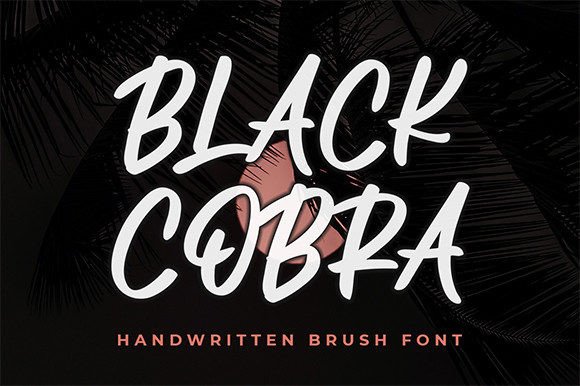
The Ultimate Guide to Black Cobra Font: Unleash Your Creative Potential
I’ll never forget the time I was working on a logo design project for a trendy fashion brand. I had a clear vision of what I wanted to create, but something was missing – the perfect font. I scoured the internet, tried out countless fonts, but none seemed to capture the essence of the brand. That was until I stumbled upon the Black Cobra Font. ✨
This modern and cool script display font has been a game-changer for me, and I’m excited to share my experience with you. In this comprehensive guide, we’ll dive into the world of Black Cobra Font, exploring its features, uses, and everything in between.
An Honest Review of Black Cobra Font
So, what makes Black Cobra Font so special? Let’s take a closer look.
- ✨ Unique and bold design: Black Cobra Font is perfect for making a statement. Its modern script style adds a touch of sophistication to any design.
- ✅ Highly versatile: This font is suitable for a wide range of projects, from logo designs and brochures to t-shirts and business cards.
- 💡 Easy to read: Despite its bold design, Black Cobra Font is surprisingly easy to read, making it perfect for quotes, headings, and titles.
While Black Cobra Font is an excellent choice, it’s not without its limitations. 🤔
- ⚠️ Limited use in body text: Due to its bold design, Black Cobra Font may not be the best choice for body text. It’s better suited for headings, titles, and emphasis.
- ⚠️ May not work well in small sizes: Black Cobra Font is designed to make a statement, and it may not be legible in very small sizes.
- Experiment with OpenType features, such as Stylistic Alternates and Glyphs, to add more personality to your design.
- Take advantage of OpenType features, such as Swashes and Ligatures, to add more flair to your design.
The Backstory of Black Cobra Font
Black Cobra Font was designed with the intention of creating a bold and modern script font that would make a statement. The designer, inspired by the sleek and agile black cobra snake, aimed to capture its essence in a font that would be both elegant and edgy. 💡
The design process involved experimenting with different letterforms, shapes, and lines to create a unique and cohesive font. The result is a font that is both stylish and versatile, perfect for a wide range of design projects.
| Font Name | Black Cobra Font |
| Author | Bluestype Studio |
Q: What type of projects is Black Cobra Font best suited for?
A: Black Cobra Font is perfect for logo designs, brochures, magazines, t-shirts, business cards, invitations, quotes, covers, watermarks, fashion, or anything that needs a bold handwritten touch.
Q: Is Black Cobra Font easy to read?
A: Yes, despite its bold design, Black Cobra Font is surprisingly easy to read, making it perfect for quotes, headings, and titles.